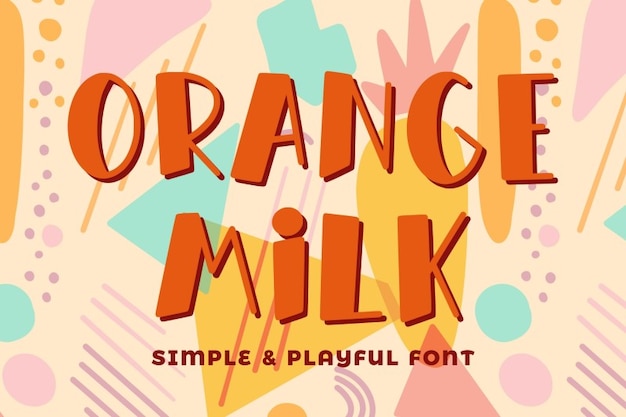
AlmarkhaType
Orange Milk is a cheerful font with elegant pastel colours. Its joyful design will add some fun notes to your creations. Download it now and have some fun inventing with this new font!